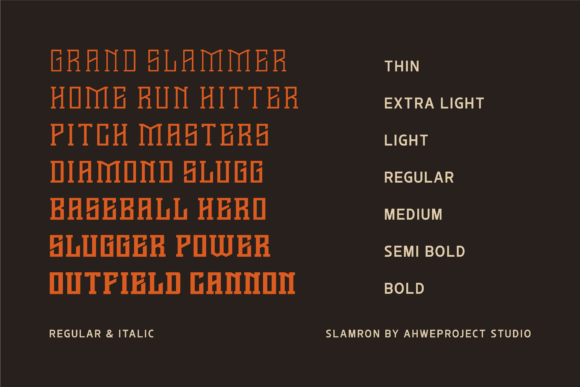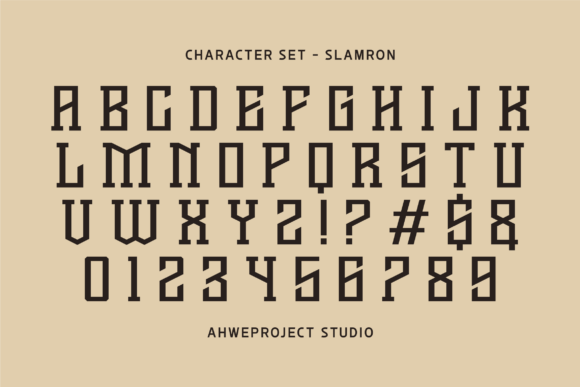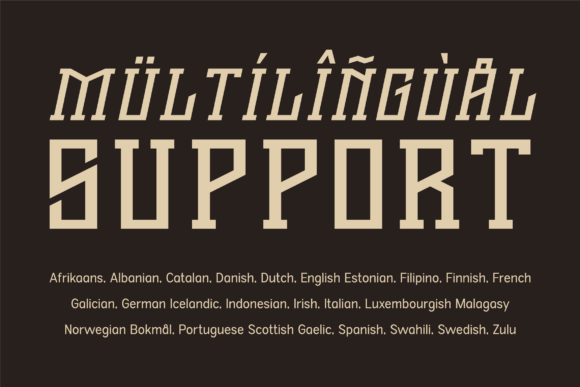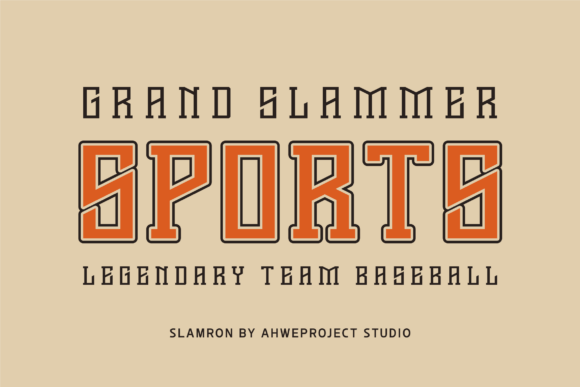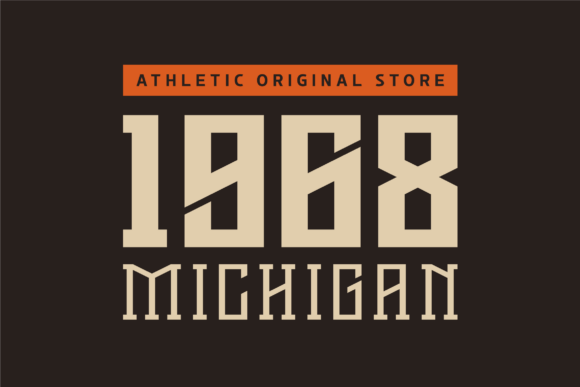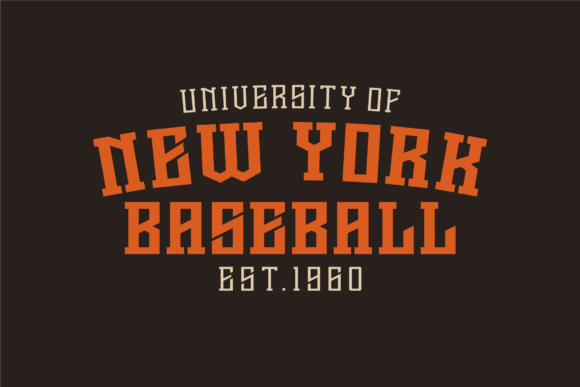
Introduction to Slamron Font
Have you ever been at a packed stadium, surrounded by cheering crowds, and caught a glimpse of the bold, eye-catching typography on the giant screens? That’s the magic of Slamron Font, a powerful serif font that embodies the classic spirit of sports typography. As a designer, you know how a well-chosen font can elevate your creative project and leave a lasting impression on your audience.
Slamron Font is more than just a font – it’s a design resource that can add a touch of high-quality, dynamic feel to your work. Whether you’re working on a sports-themed project or something more vintage and retro, Slamron Font is the perfect choice. And the best part? It’s available for free download, making it an accessible addition to your design arsenal.
With Slamron Font, you can create bold, confident typography that demands attention. From posters and packaging to editorial layouts and marketing visuals, this versatile font is sure to make a statement. And with its transparent background, you can easily incorporate it into your designs without any distractions. So why settle for anything less when you can unleash the power of Slamron Font and take your creative projects to the next level?
Key Features of Slamron Font
- Unique Design: The Slamron Font is a creative and high-quality design resource, perfect for any project that requires a unique touch.
- Customizable: The Slamron Font is highly customizable, allowing designers to adjust the font’s style, size, and color to fit their specific design needs.
- Perfect for Creative Projects: The Slamron Font is ideal for designers working on creative projects, such as logos, posters, and brochures, where a unique and eye-catching font is essential.
Honest Review: Slamron Font
I recently stumbled upon the Slamron Font, a free download that’s been making waves in the design community. As a designer, I was excited to put it to the test and see if it lived up to its hype.
Here’s what I liked about the Slamron Font:
- ✨ It’s a high-quality font with a unique, creative vibe that’s perfect for any project that needs a little extra oomph.
- ✨ It’s a great design resource for anyone looking to add some personality to their work.
- ⚠️ The font can be a bit tricky to use in certain situations, especially when it comes to smaller text sizes.
- ⚠️ It’s not ideal for projects that require a lot of bold or italic text, as the font can become a bit distorted.
Overall, I’d say the Slamron Font is a solid addition to any design toolbox. While it’s not perfect, its unique style and high-quality design make it a great choice for creative projects. Just be aware of its limitations, and you’ll be golden!
Slamron Font Overview
The Slamron Font is a high-quality design resource ideal for creative projects. This versatile font offers a unique blend of modern and vintage elements, making it perfect for a variety of applications. The Slamron Font is available for free download, allowing designers to access its full potential without any restrictions.
Common Use Cases for Slamron Font
The Slamron Font is commonly used in a variety of design projects, including:
- Graphic design and branding